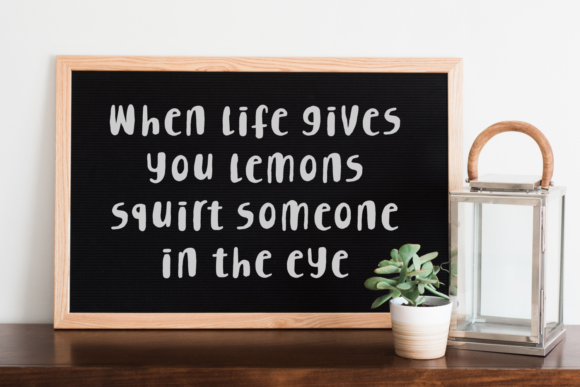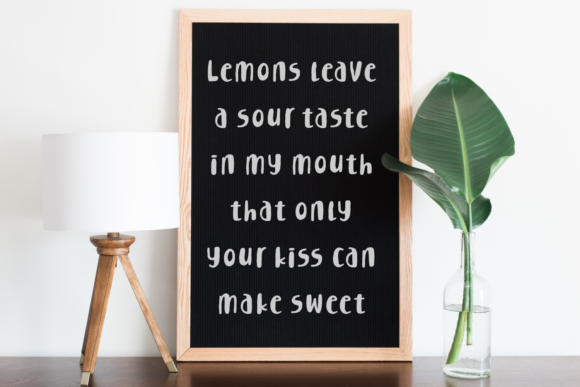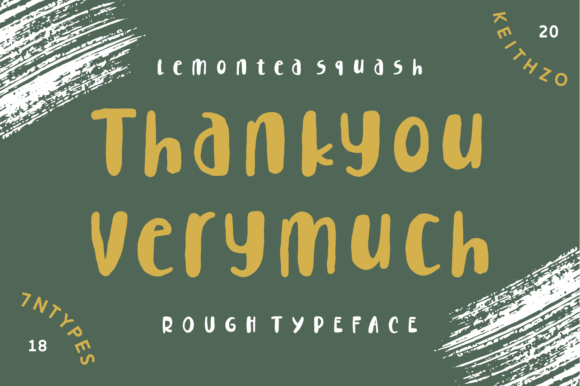
Lemontea Squash Font
About Lemontea Squash Font
The Lemontea Squash is a playful script with a rough look. There are two styles included in this download: regular and italic.Both styles have a great readability which makes it perfect for large designs.